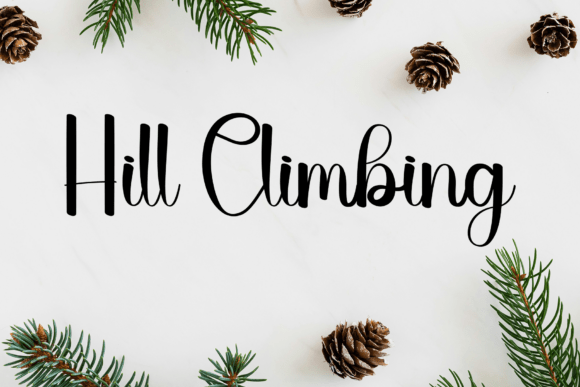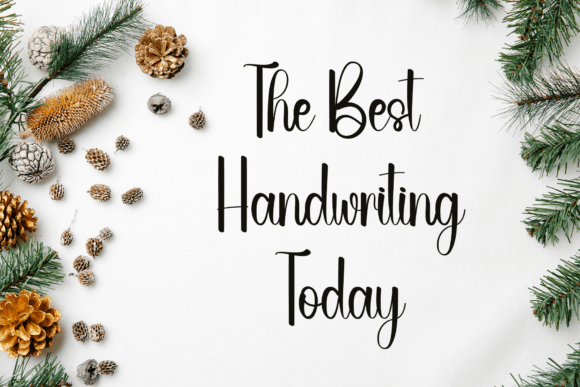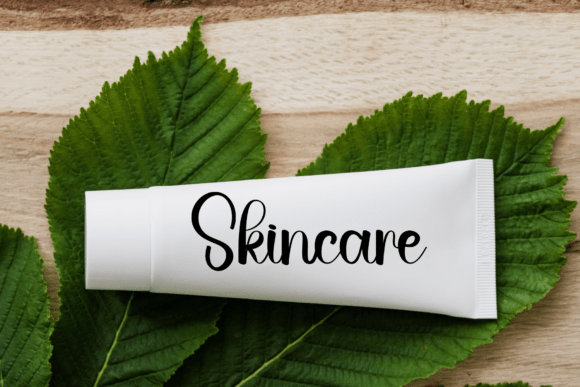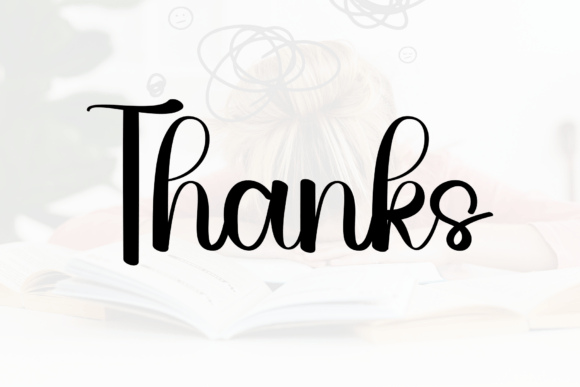
The Elizabeth Font: A Handwritten Gem for Creative Projects
I’ll never forget the time I was working on a luxury brand’s wedding invitation suite, and I just couldn’t find the right font to match their elegant yet casual vibe. That was until I stumbled upon the Elizabeth font. It was like a breath of fresh air – a handwritten font that looked like it was drawn with a marker, giving it a relaxed and sporty feel. In this article, I’ll share my love for the Elizabeth font, its features, and how to make the most of it in your creative projects.
So, what makes the Elizabeth font special? Here are some things I love:
- ✨ Luxurious and elegant feel with a casual twist
- ✅ Perfect for branding, logos, wedding supplies, greeting cards, and marketing promotions
- 💕 Beautifully crafted to give a high-end look without being too formal
- 👍 Highly versatile and easy to pair with other fonts
Of course, no font is perfect, and the Elizabeth font has a few quirks:
- 🤔 Limited use of uppercase letters, but the lowercase letters are beautifully designed
- ⚠️ Not ideal for body text due to its decorative nature
Exploring OpenType Features
The Elizabeth font comes with a range of OpenType features that can elevate your designs. Here are a few tips:
- Use glyphs to add decorative elements, such as swashes or flourishes
- Experiment with stylistic alternates to create a more customized look
- Take advantage of ligatures to create a more cohesive design
The Story Behind Elizabeth
The Elizabeth font was designed with the intention of creating a luxurious yet approachable feel. The designer aimed to craft a font that would be perfect for high-end brands, weddings, and special occasions, while still being casual and friendly. The result is a font that exudes elegance and sophistication without being too formal.
| What is the Elizabeth font best used for? | The Elizabeth font is ideal for branding, logos, wedding supplies, greeting cards, fashion, lookbooks, marketing promotions, and any design project that requires a luxurious yet casual feel. |
| Is the Elizabeth font suitable for body text? | No, the Elizabeth font is best used for headings, titles, and short paragraphs due to its decorative nature. |
| Is the Elizabeth font available in different styles or weights? | Currently, the Elizabeth font is available in a single style, but it’s possible to find variations or similar fonts that offer more weights or styles. |